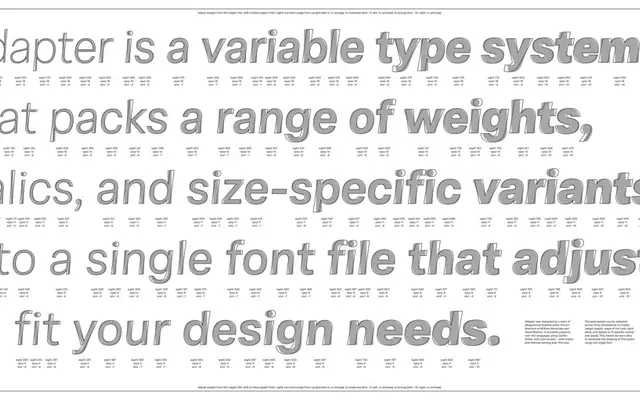
Adapter PE
A multilingual humanist sans from Rosetta with separate Text and Display optical sizes, nine weights, italics and variable font support across Latin, Cyrillic and Greek.
Adapter PE spans 34 static styles across Text and Display optical sizes, each running from Thin or Extralight through to Black with matching italics. The family also ships as a variable font covering all styles in one file. Latin, Cyrillic and Greek are all supported, making it well suited to multilingual editorial and institutional publishing.
Adapter PE is a humanist sans-serif with optical size variants (Text and Display) and a broad weight range, consistent with a contemporary humanist sans designed for extended multilingual typesetting.